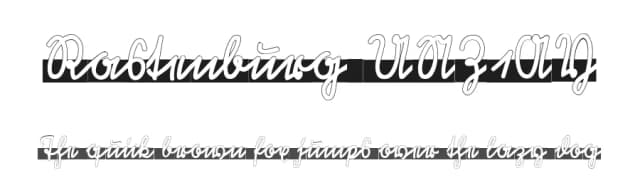
About Krugmann Brush Font
Krugmann Brush Font is a script font that shines as a display or heading face. Pair it with a clean sans-serif or serif font for body text β the contrast creates a clear hierarchy while the two styles stay balanced and easy to read.
Krugmann Brush Font
by Peter Wiegel
Krugmann Brush Font is a script handwritten typeface by Peter Wiegel, ideal for logos, invitations, branding, and creative projects.